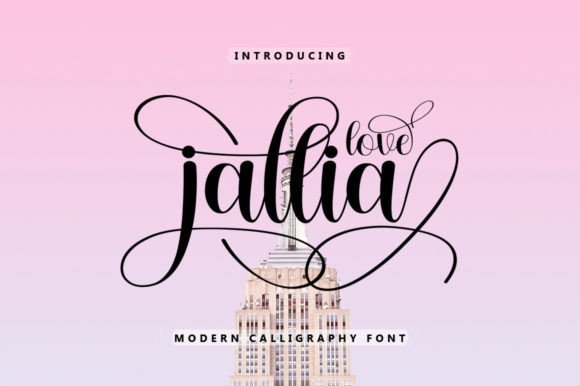
The Perfect Font for Romance and Luxury
You know that moment when you’re working on a design project, and you’re trying to convey a sense of romance and luxury? You’ve got the perfect image, the ideal color palette, but something’s missing – that special touch that elevates your design from good to great. For designers, finding the right font can be the difference between a beautiful project and a truly exceptional one.
Enter Jallia Love Font, a stunning calligraphy typeface that’s designed to add a touch of elegance and sophistication to any design project. With its flowing characters and beautiful curves, Jallia Love Font is the perfect choice for anyone looking to create a romantic and luxurious atmosphere in their design.
Jallia Love Font Key Features
- Font Family: Jallia Love Font
- Unique Characteristics: Hand-drawn design, cursive script, elegant and romantic feel, perfect for wedding invitations, love letters, and other romantic designs
Jallia Love Font Review
As a designer, I’ve had the chance to work with the Jallia Love Font, and I must say it’s a unique and charming addition to any design project. ✨ The font’s whimsical and elegant feel makes it perfect for creating a romantic or vintage-inspired atmosphere. ✨ The intricate details and flourishes add a touch of sophistication, making it ideal for high-end branding or packaging.
One of the standout features of the Jallia Love Font is its versatility. ✨ It can be used in a variety of settings, from body text to headings, and still maintain its charm. The font also comes in a range of weights, allowing designers to create a cohesive and balanced look.
However, there are some limitations to consider: ⚠️ The font may not be the best choice for projects that require a more modern or minimalist aesthetic. Additionally, the intricate details may make it difficult to read at small font sizes or in certain color combinations.
In conclusion, the Jallia Love Font is a beautiful and unique addition to any design project. While it may not be suitable for every project, it’s perfect for those that require a touch of elegance and whimsy. As a designer, I would definitely recommend this font to clients looking to create a romantic or vintage-inspired atmosphere.
- Unique and charming aesthetic
- Perfect for romantic or vintage-inspired projects
- Available in a range of weights
- May not be suitable for modern or minimalist projects
- May be difficult to read at small font sizes or in certain color combinations
Tips for Getting the Most Out of Jallia Love Font
For optimal results, use the Jallia Love Font in combination with other design elements that complement its playful and elegant feel.
Experiment with different font sizes, colors, and combinations to create visually appealing and effective designs.
The Jallia Love Font is ideal for:
- Valentine’s Day and romantic-themed designs